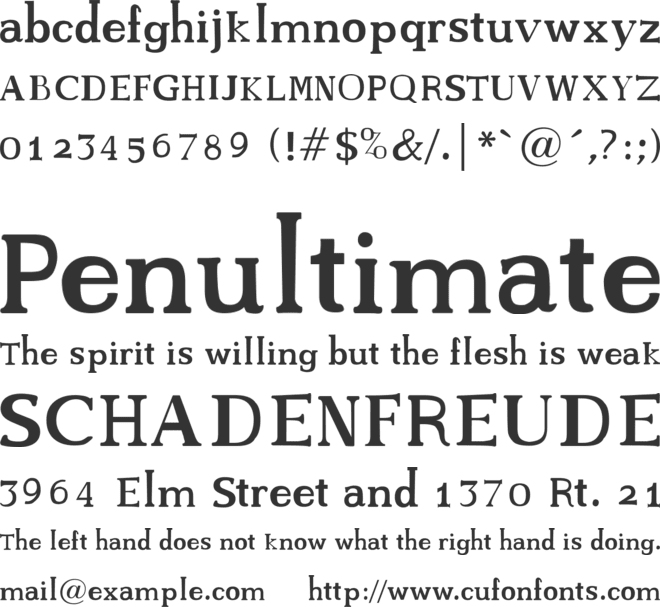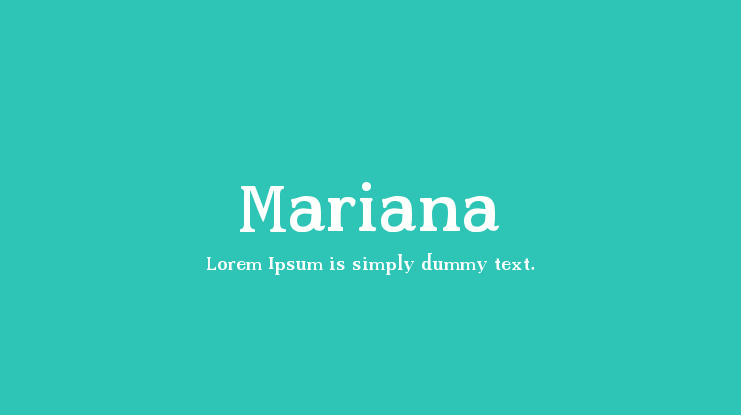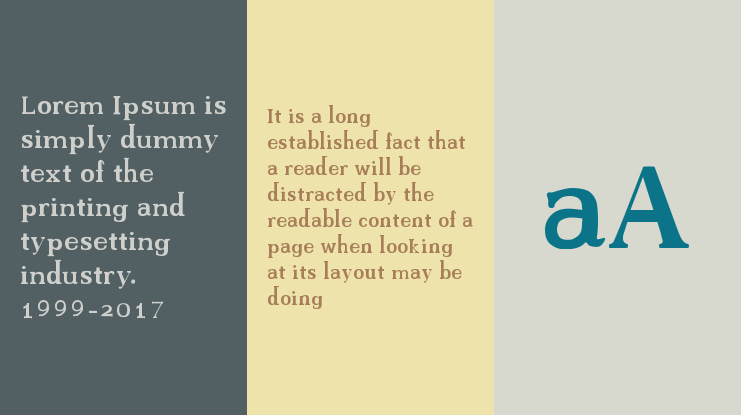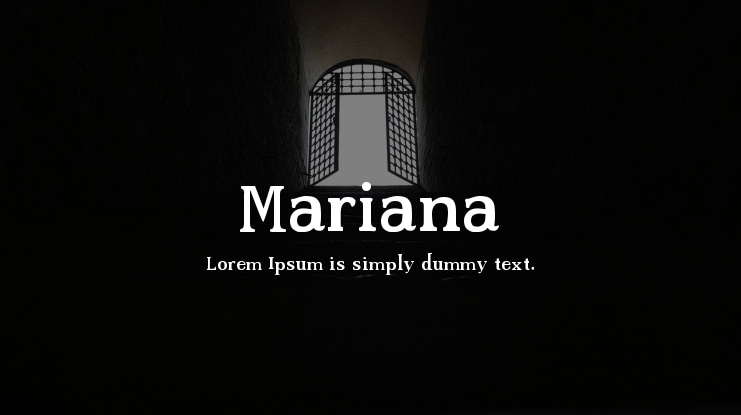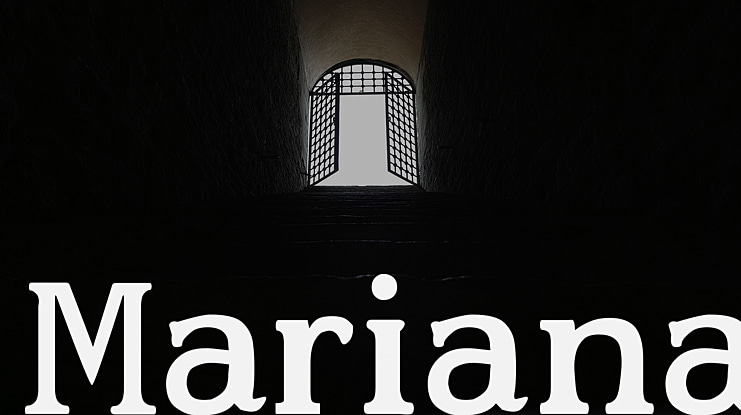
Mariana Font
The font Mariana Slabserif is a digital transference of a abandoned tipography used in the ' 60s decade in some books of Economy, in Buenos Aires, Argentina.